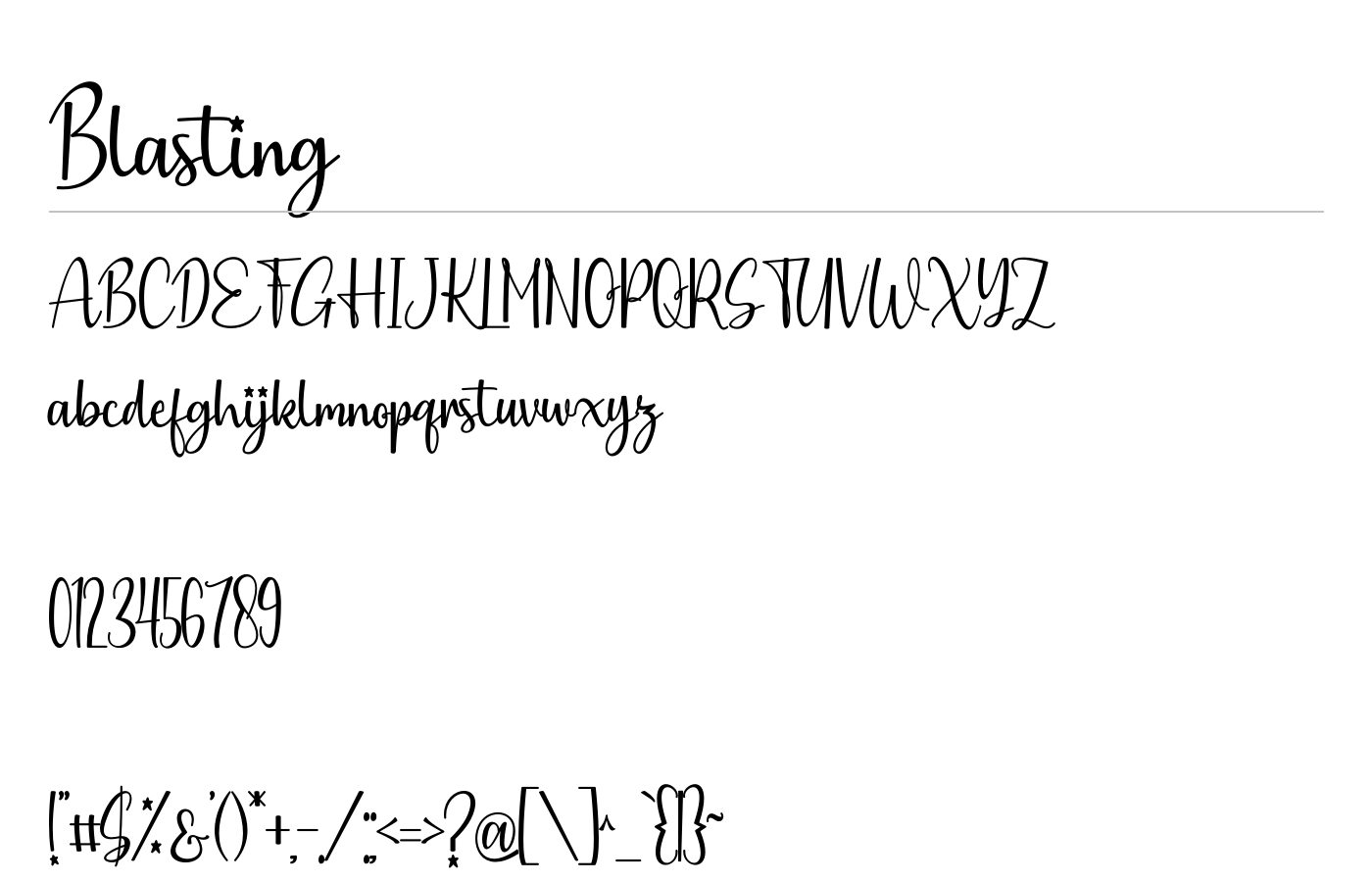
Blasting is a playful and whimsical script font with a light weight and tall, narrow letterforms that give it an elegant yet casual feel. Its hand-drawn strokes include charming star-shaped dots and unique flourishes, making it perfect for fun, creative branding, invitations, and decorative headlines. This font shines in designs that want to convey a youthful, friendly, and lively personality.
Blasting Font
About Blasting Font
| Designer | Arief Tri Sulistiyono |
| Trademark | Supersemar Letter |